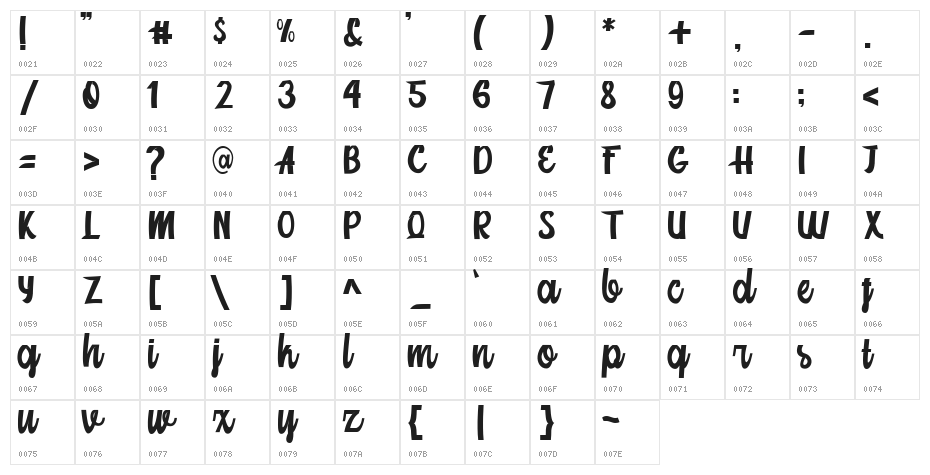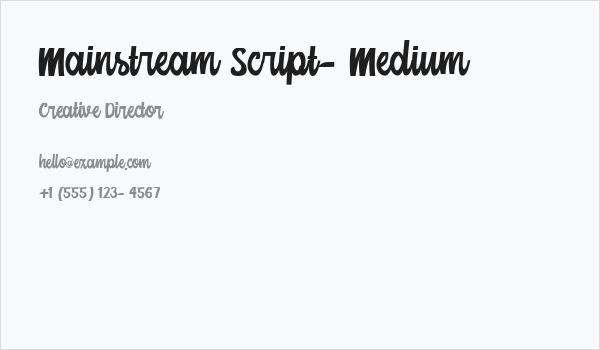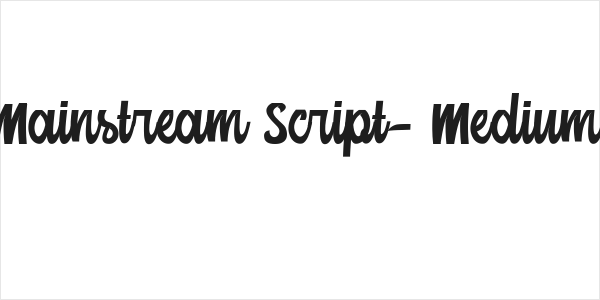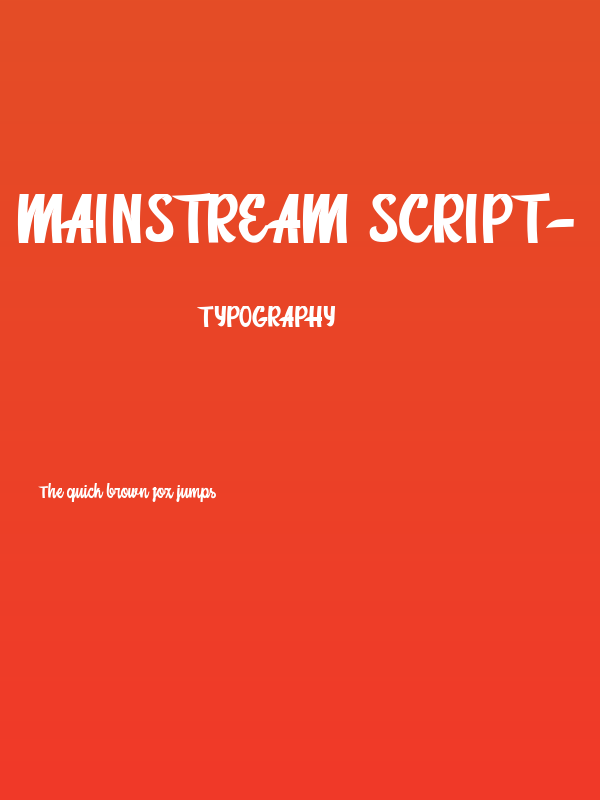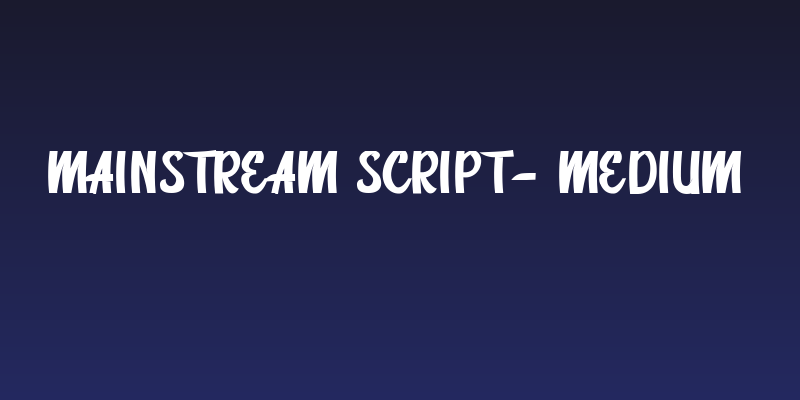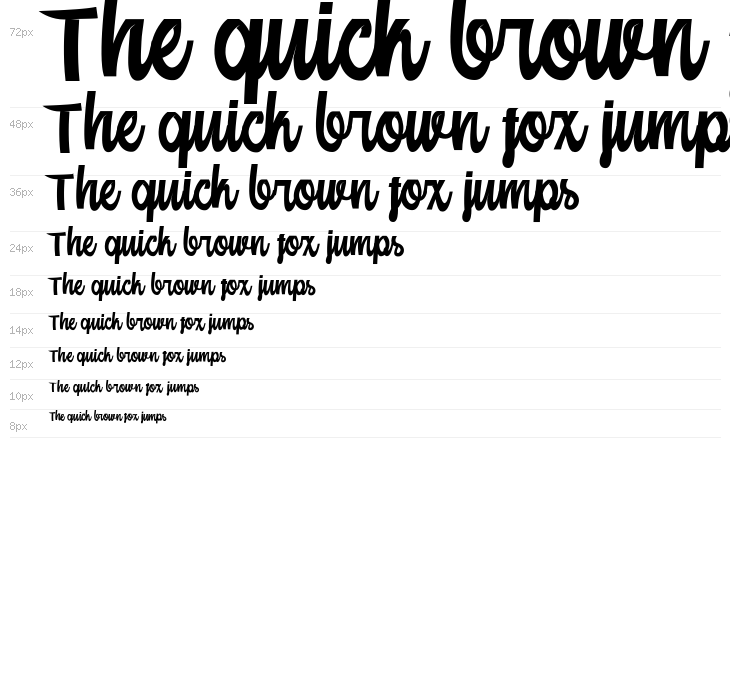
Mainstream Script-Medium Font
Mainstream Script-Medium Description
This font features a bold and dynamic script style with a handwritten appearance. The uppercase letters are characterized by their strong, sweeping strokes and a slight slant, giving them an energetic and lively feel. The lowercase letters maintain a consistent flow, with smooth curves and a natural, cursive look. The numerals are bold and clear, matching the overall style of the letters. Special characters are well-integrated, maintaining the font's cohesive design. The font's boldness and fluidity make it stand out, perfect for projects that require a touch of personality and flair.
| Use Case | Logos, Headlines, Invitations |
| Proposed Projects | Ideal for branding, invitations, posters, and any design needing a personal, lively touch. |